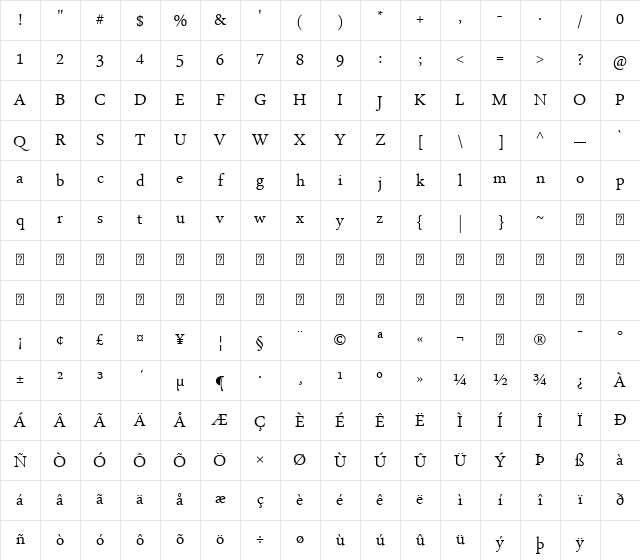
Arabic Typesetting Regular
Designer: Mamoun Sakkal, Paul C. Nelson and John Hudson
Complete Arabic Typesetting Regular glyph index. Displaying only characters natively supported by Arabic Typesetting Regular font.
Design Context for Arabic Typesetting
Arabic Typesetting is a composed and adaptable typeface that performs quietly and consistently across a wide range of design contexts.